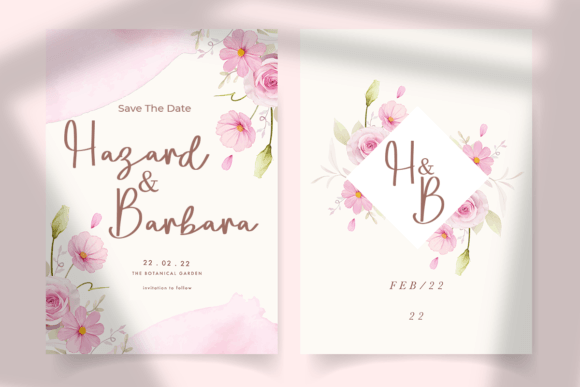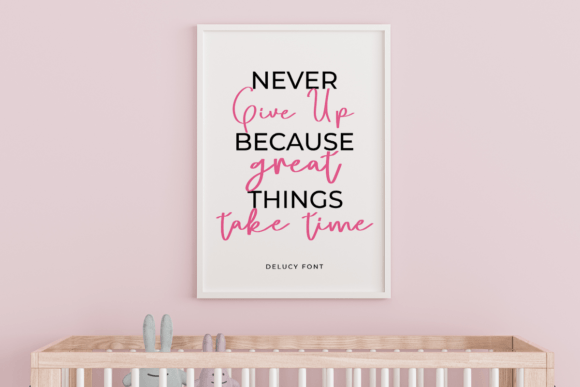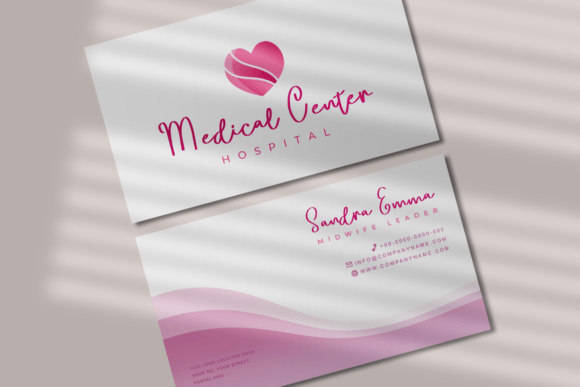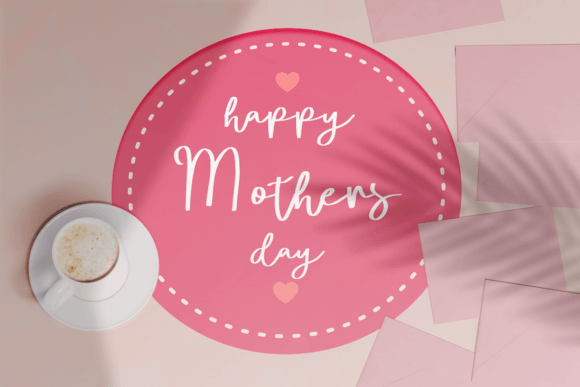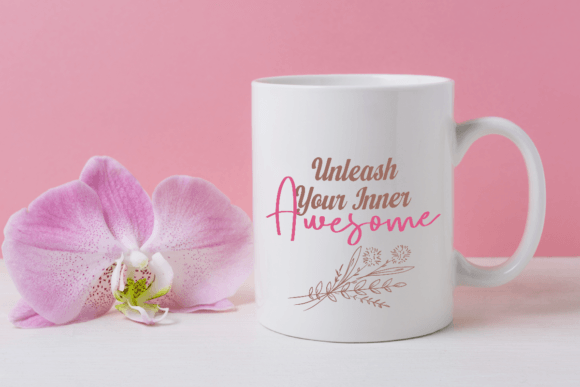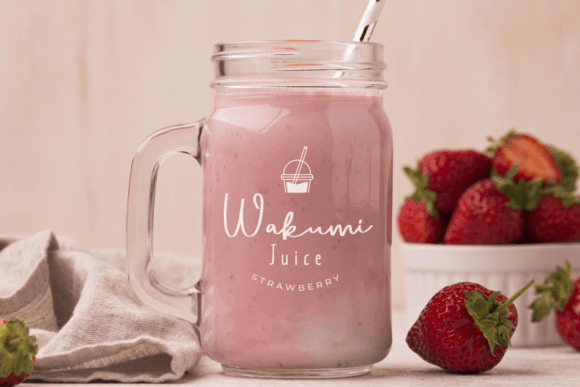
Meet Your New Best Friend in Handwritten Fonts
Do you remember that moment when you stumbled upon the perfect font, and it just clicked? It’s as if the entire design came together in a beautiful harmony. That’s exactly what happens when you fall in love with the Delucy Font.
Delucy is more than just a font – it’s a sweet and friendly companion that brings a touch of natural elegance to any design. Whether you’re working on a branding project, a wedding invitation, or a social media graphic, Delucy Font is the perfect addition to elevate your creative vision. Its unique style makes it incredibly versatile, giving you the freedom to experiment and push the boundaries of your imagination.
Delucy Font Key Features
- Unique Characteristics: Delucy Font features a unique blend of modern and vintage elements, making it a versatile choice for designers.
Delucy Font Review
As a designer, I’ve had the chance to work with various fonts, and Delucy is one of them. Here’s my honest review.
- Delucy has a unique, elegant feel that’s perfect for luxury brands or high-end designs.
- The font is highly legible, making it easy to read even at smaller sizes.
- It’s available in multiple weights, from light to bold, giving designers plenty of options for creating contrast and visual interest.
- The font’s curves and lines are smooth and refined, making it a great choice for logos, typography, and other design elements.
- The font might be a bit too ornate for simpler designs or text-heavy content.
- It’s not as versatile as some other fonts, which might limit its use in certain design contexts.
- The font’s elegance can sometimes come across as overly formal or even stuffy, which might not be suitable for every brand or design project.
Overall, Delucy is a solid choice for designers who want to add a touch of luxury and sophistication to their projects. While it may not be the best fit for every design scenario, it’s definitely worth considering for the right project.
Tips for Getting the Most Out of Delucy Font
Combine Delucy Font with other fonts for a unique and eye-catching look.
Use Delucy Font for headings and titles to add a touch of elegance.
Delucy Font is perfect for:
Business branding and marketing materials.
Artistic and creative projects.